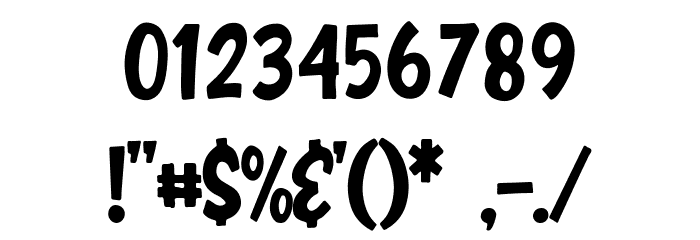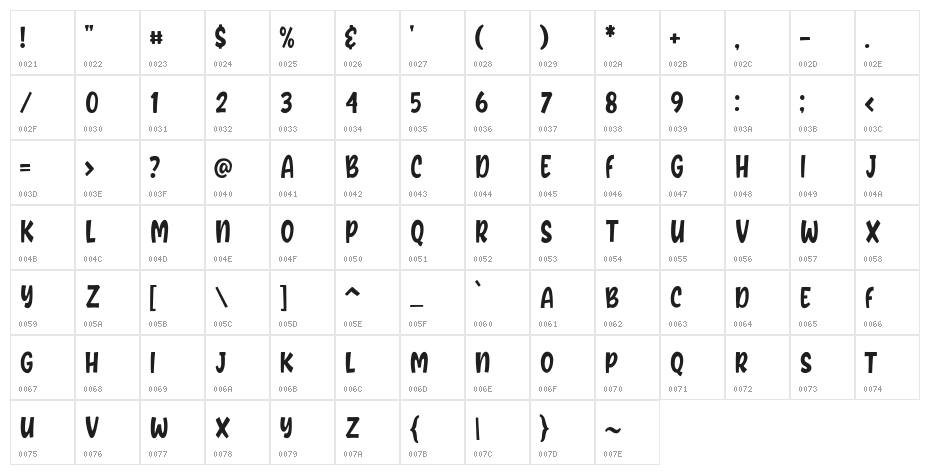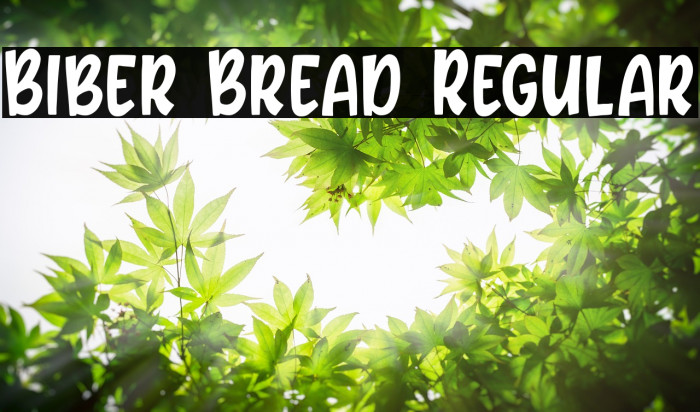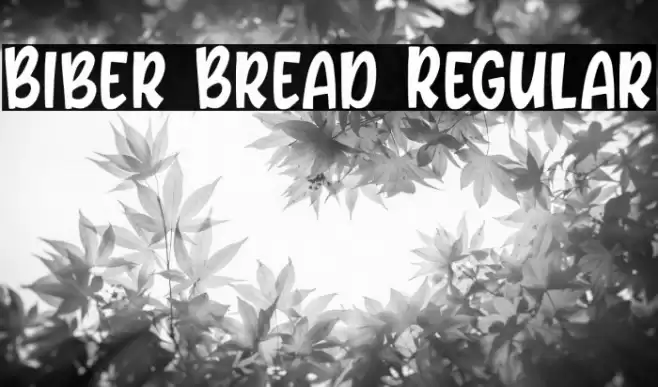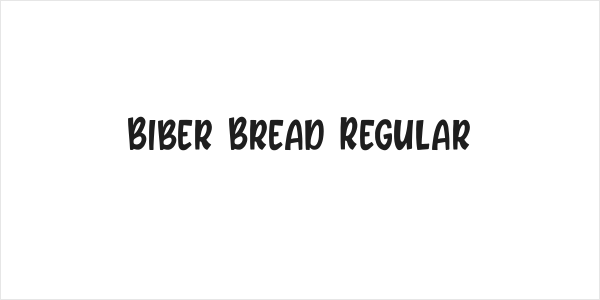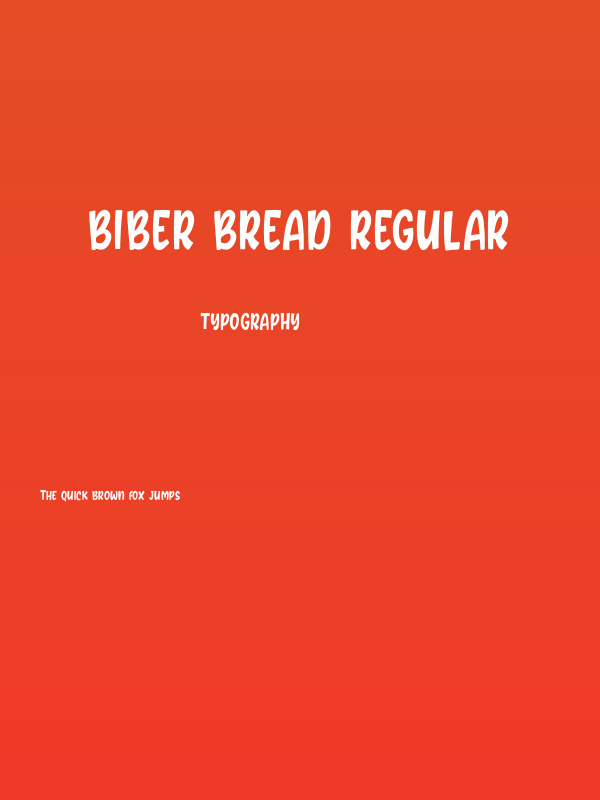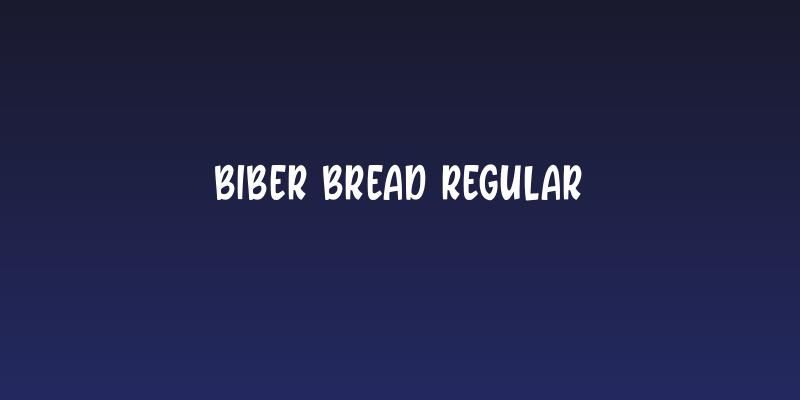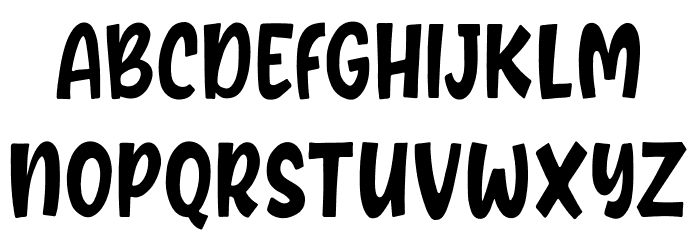
Biber Bread Regular Font
Biber Bread Regular Description
This font exudes a playful and energetic vibe, characterized by its bold and slightly irregular strokes. The letters have a hand-drawn feel, with a slight tilt that adds to its dynamic appearance. The uppercase and lowercase letters maintain a consistent style, with rounded edges and a friendly demeanor. The numbers and special characters follow the same lively design, making the font suitable for projects that require a touch of whimsy and creativity. Its overall appearance is both approachable and eye-catching, making it ideal for informal and fun contexts.
| Proposed Projects | Ideal for children's books, playful branding, posters, and greeting cards. |